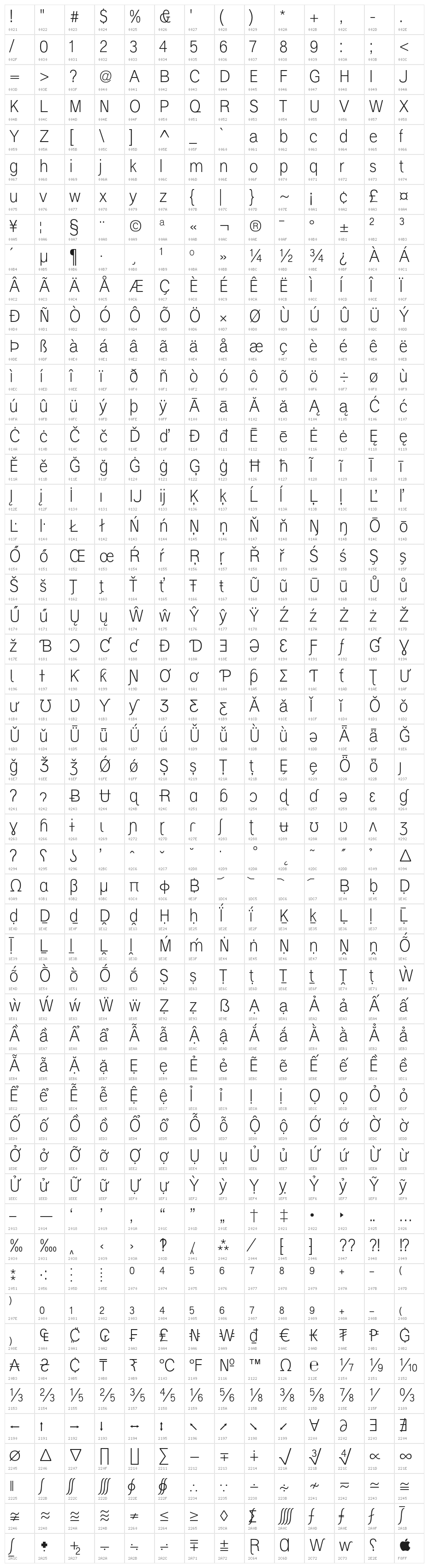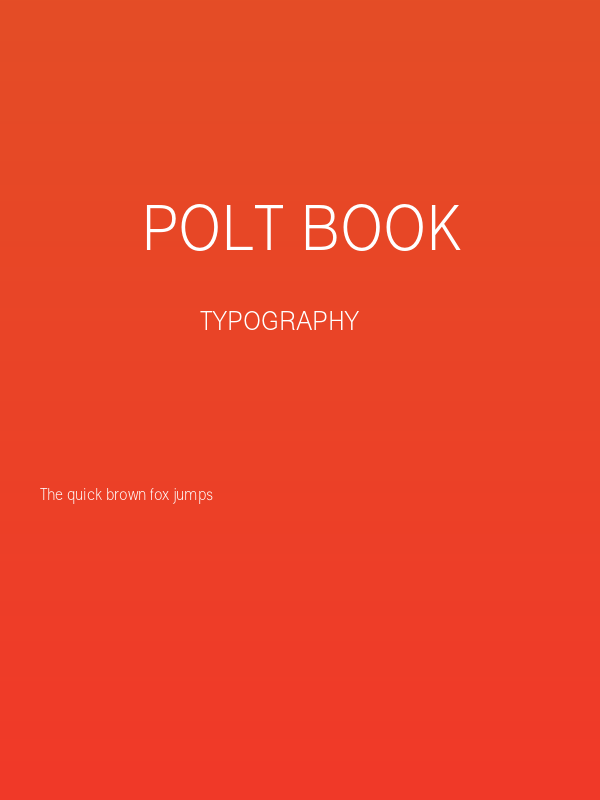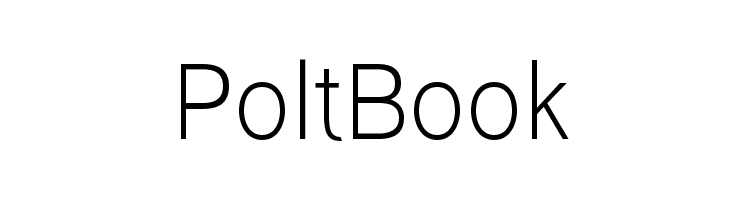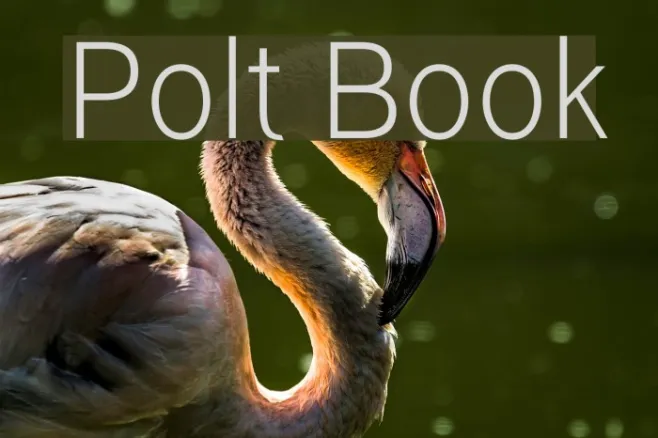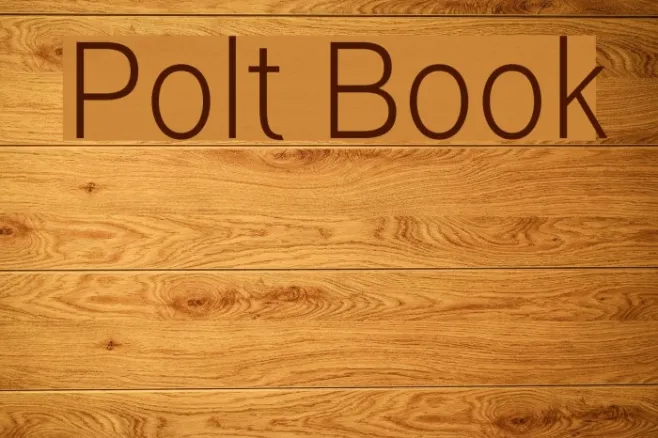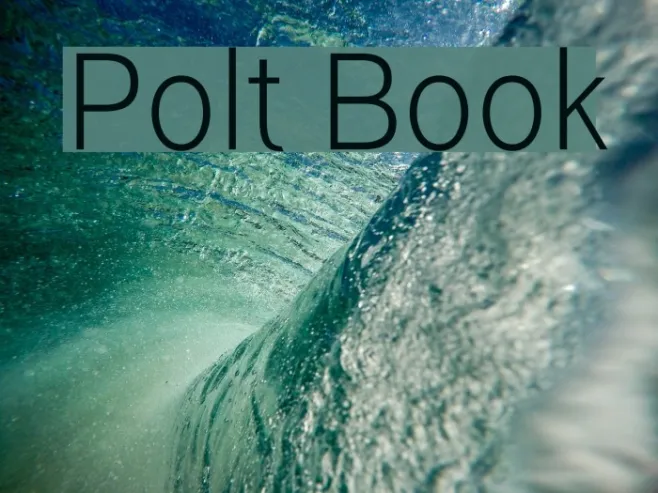
Polt Book Font
Polt Book Description
This font features a clean and modern sans-serif design, characterized by its simplicity and clarity. The letters are evenly spaced with a consistent stroke width, providing a uniform appearance. The uppercase and lowercase letters are well-proportioned, enhancing readability. The numerals are straightforward and align well with the overall style. Special characters are distinct and maintain the font's minimalist aesthetic. This font is versatile and suitable for various applications, offering a professional and contemporary look.